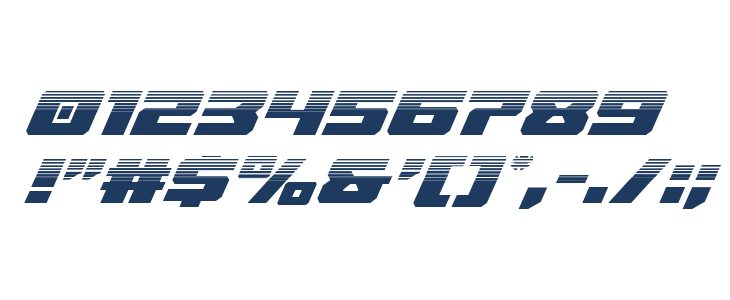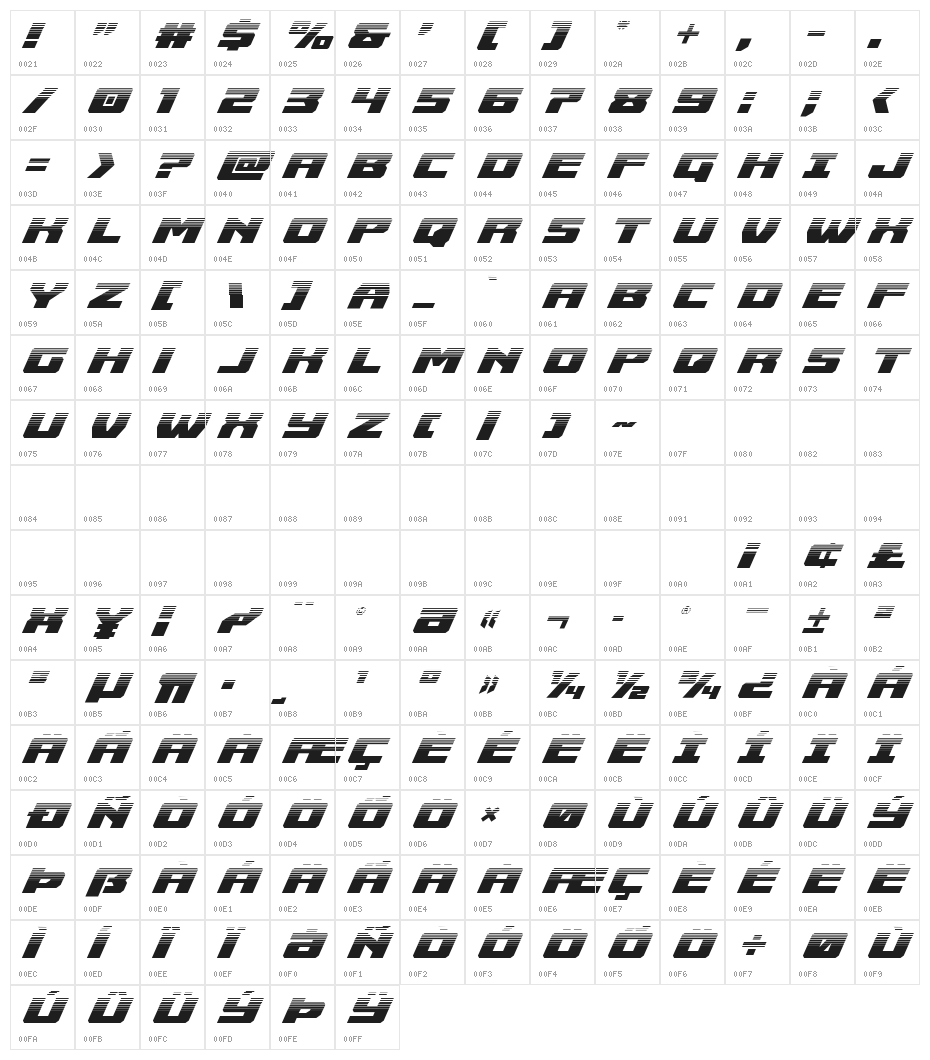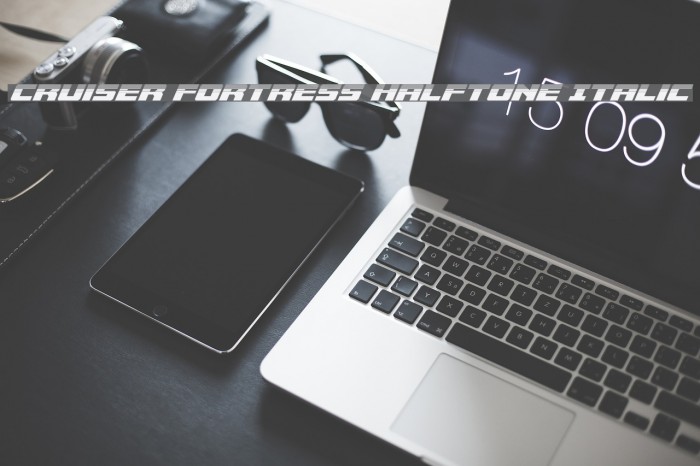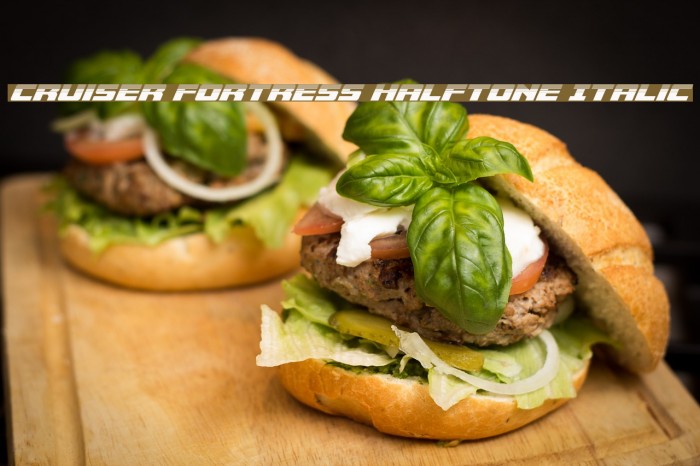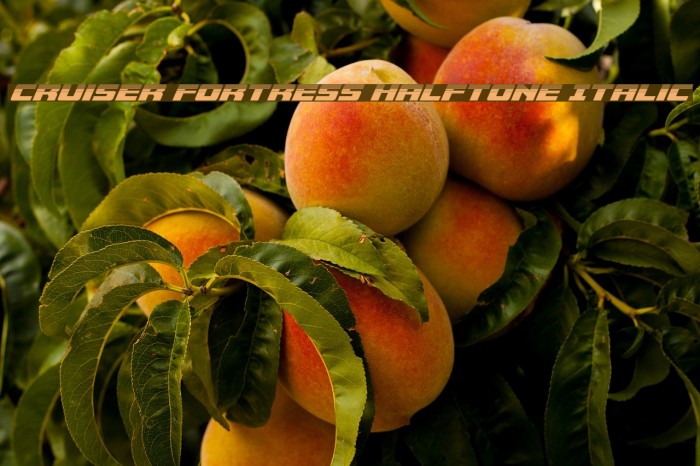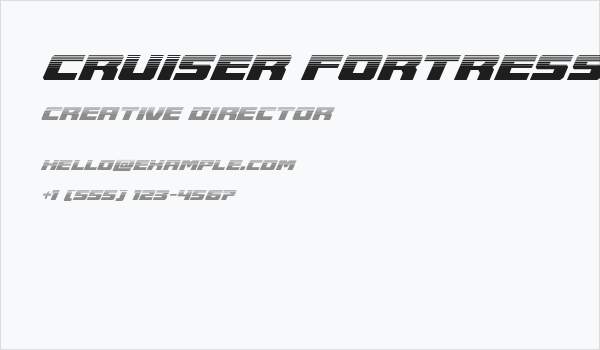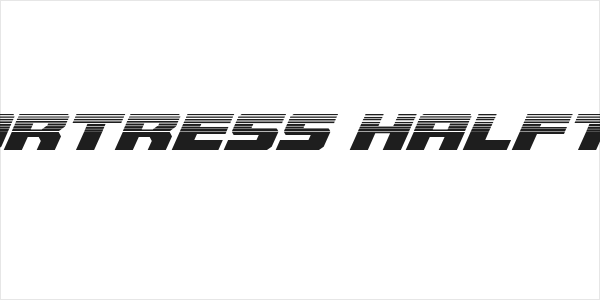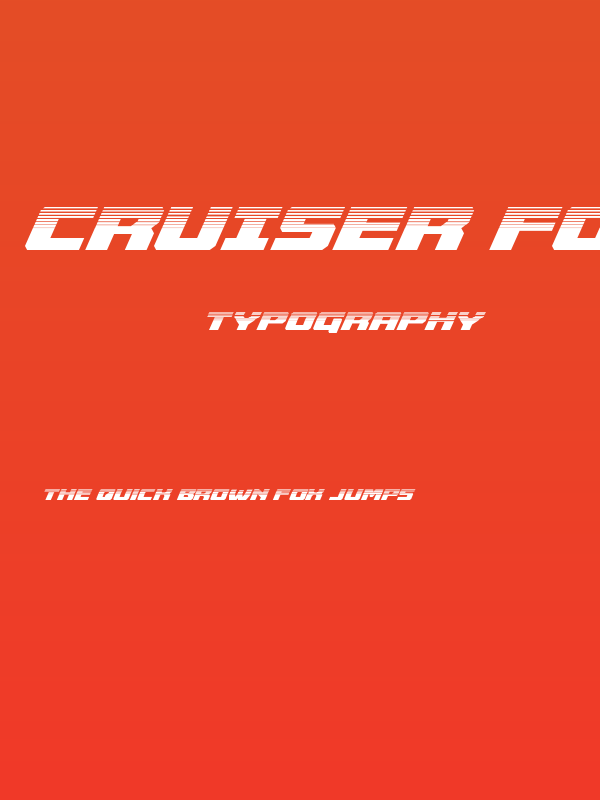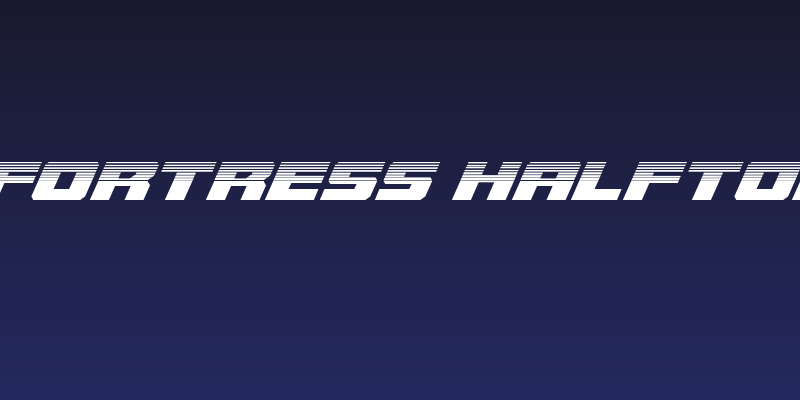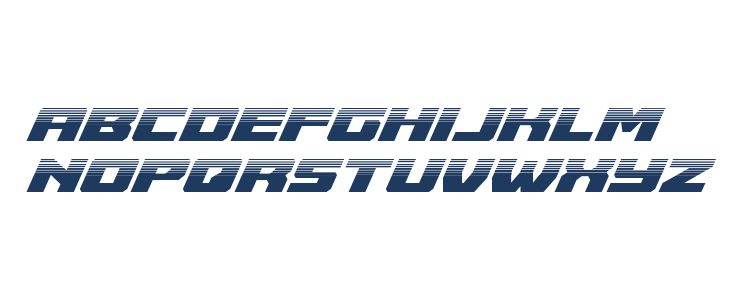
Cruiser Fortress Halftone Italic Font
Cruiser Fortress Halftone Italic Description
This font features a bold, italicized style with a distinctive halftone effect that gives it a dynamic and futuristic appearance. The uppercase and lowercase letters are designed with a forward slant, enhancing the sense of motion and speed. The characters are constructed with thick, solid strokes, interspersed with horizontal lines that create a unique visual texture. This design choice adds depth and interest, making the font stand out in any application. The numerals and special characters follow the same stylistic approach, ensuring consistency across all elements. The font's overall look is modern and edgy, suitable for projects that require a strong visual impact.